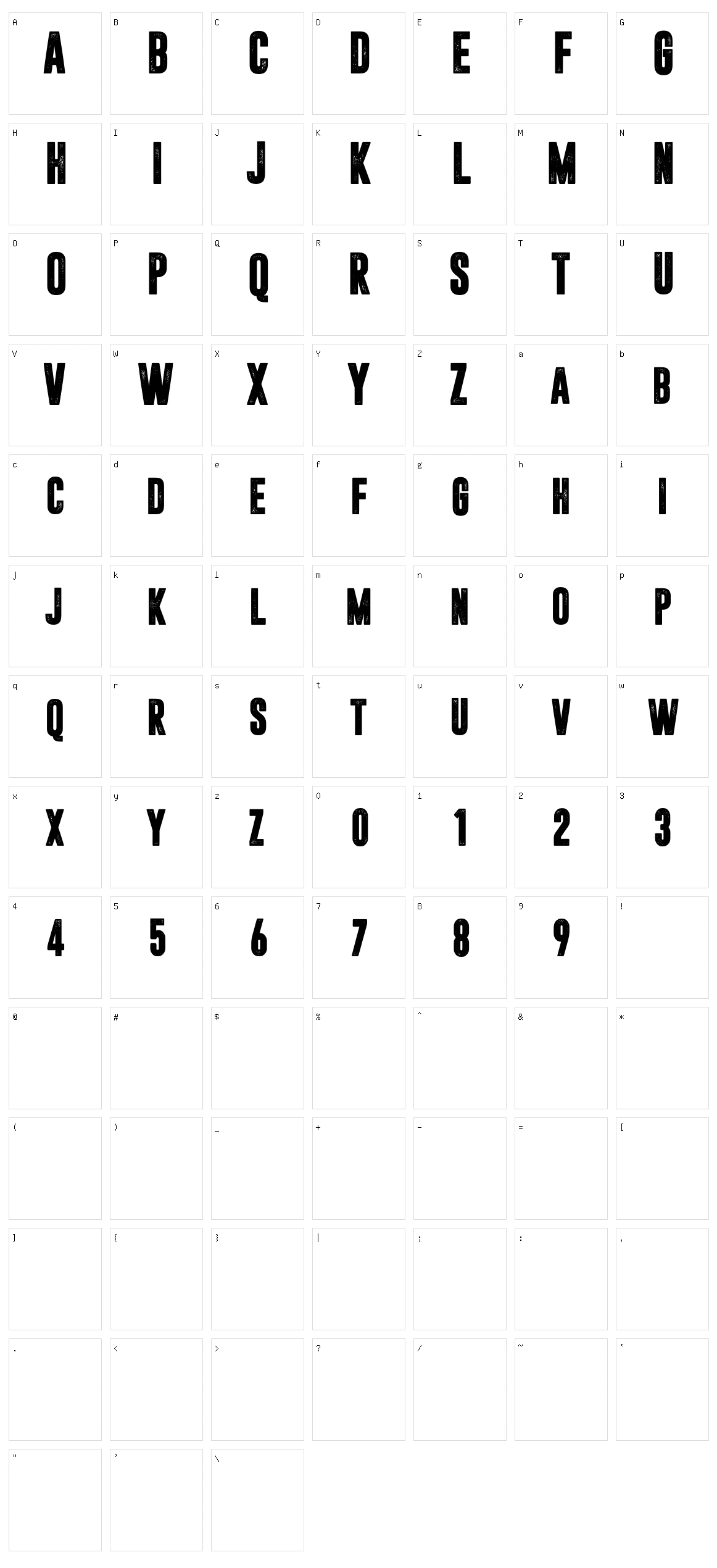
The free font Dreamwalker is carefully designed by The Branded Quotes, showcasing a thoughtful balance of creativity and usability and falls under the Eroded font style. When you download the ZIP file, it contains only 535.24 KB of font files, making it lightweight and quick to download. Please review the license details below to understand permitted usage and distribution rights. If license information is not available, we recommend using this font for personal projects only or contacting the author directly for commercial usage permissions.